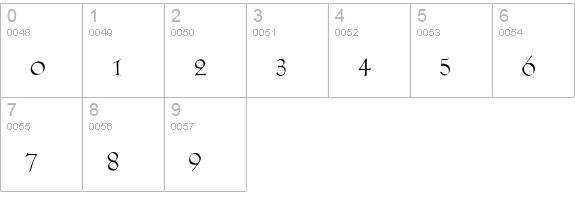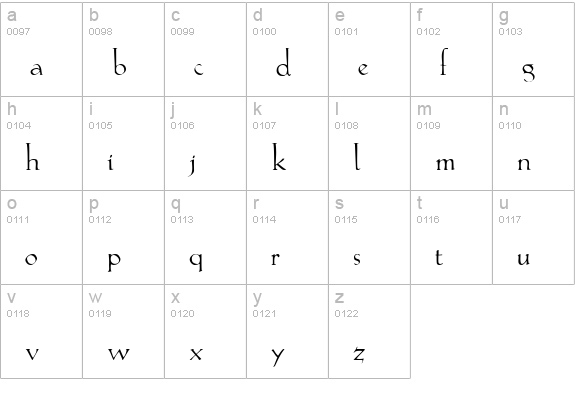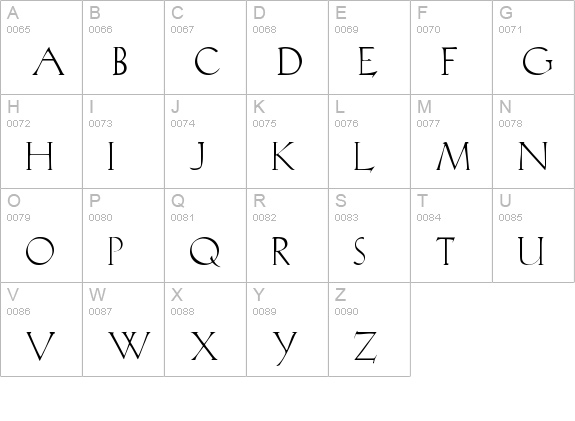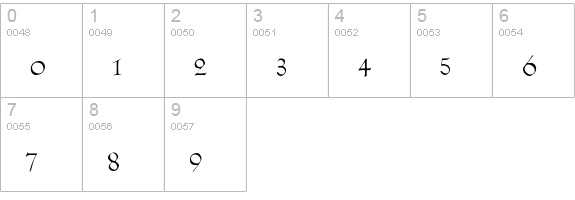
Lilith Light Medium is a refined, elegant variant in the Lilith typeface family \xE2\x80\x94 well suited to elegant body text, refined sub-headings, and luxury branding.
Lilith Light Medium font is a modern and elegant typeface that strikes the perfect balance between sophistication and readability. With its clean lines and subtle curves, this font exudes a sense of contemporary style while remaining highly legible in any design application. The delicate weight of Lilith Light Medium adds a touch of refinement to any project, making it ideal for both headings and body text. What sets Lilith Light Medium font apart is not only its timeless appeal but also the fact that it is completely free to download at FontsMarket.com. This means that you can enjoy the beauty and versatility of this exquisite font without any cost, making it a valuable addition to your font library. Whether you're working on a branding project, a website design, or any other creative endeavor, Lilith Light Medium font is sure to elevate your work with its effortless charm and versatility. Download it today and experience the endless possibilities that this stunning font has to offer.